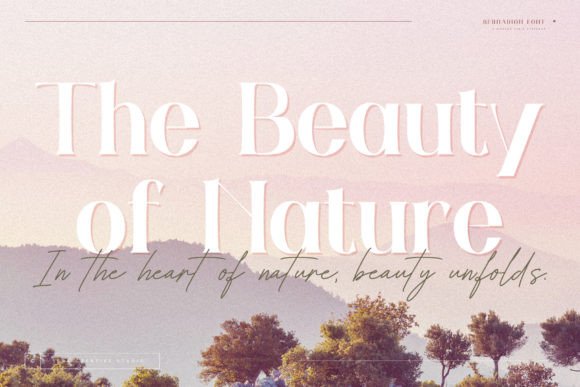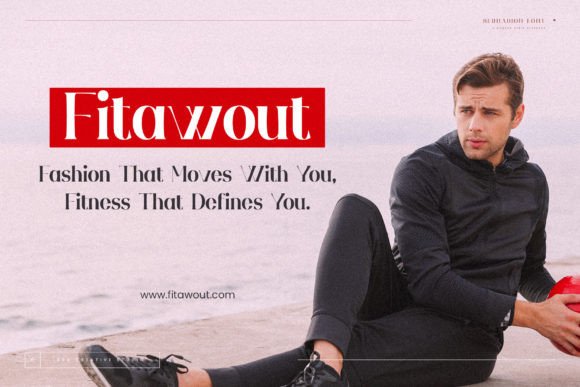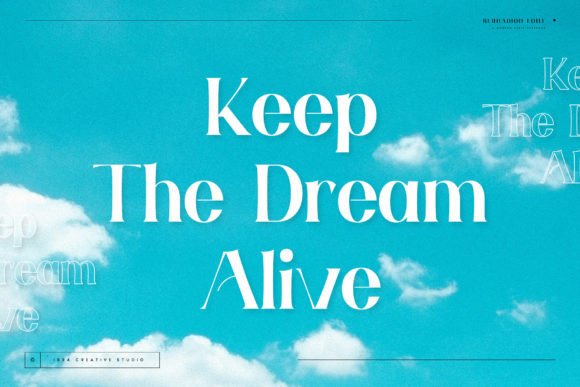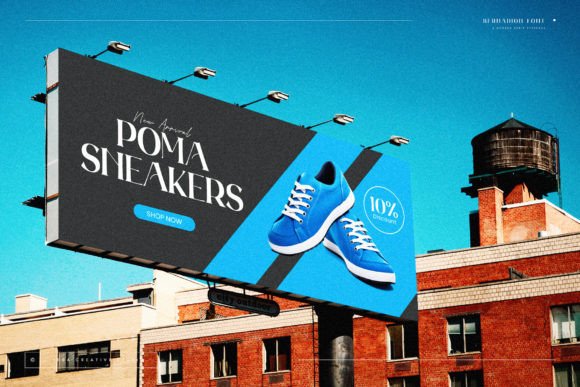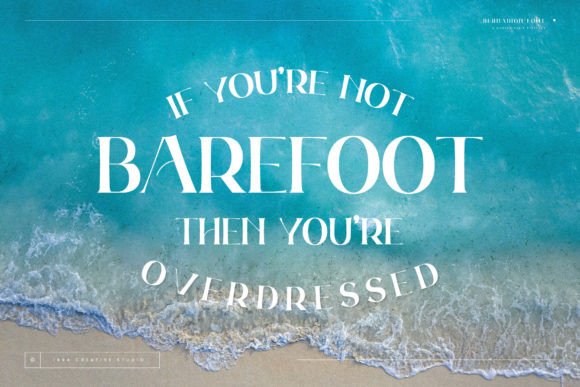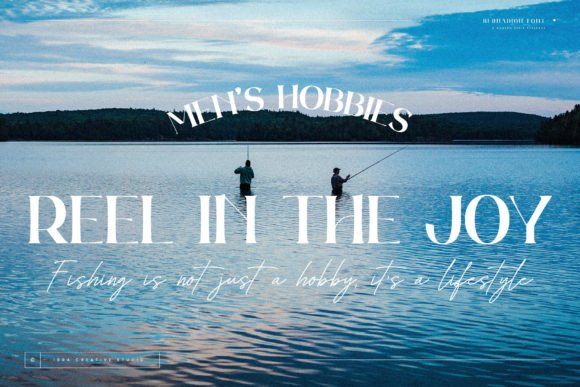
Bernadion Font: A Modern Serif Typeface for Sophisticated Designs
In the world of typography, a font can make or break a design. With the rise of modern design trends, the demand for typefaces that exude sophistication and elegance has increased. This is where Bernadion font comes into play – a contemporary serif typeface that strikes a perfect balance between timeless elegance and sleek aesthetics.
The Birth of Bernadion: A Harmonious Blend of Classic and Modern Elements
Bernadion is a thoughtfully crafted font that seamlessly merges traditional serif elements with modern design principles. The result is a typeface that boasts refined letterforms, subtle geometric influences, and a crisp, professional demeanor. The font’s creator aimed to design a typeface that would not only capture attention but also convey a sense of sophistication and luxury.
Key Features of Bernadion Font
- Refined Letterforms: Bernadion’s letterforms are meticulously designed to exude elegance and poise. Each character is crafted with precision, ensuring a harmonious flow of lines and curves.
- Subtle Geometric Influences: The font incorporates subtle geometric elements, adding a touch of modernity to its classic serif design.
- Balanced Proportions: Bernadion’s balanced proportions ensure that the font remains legible and visually appealing across various platforms and sizes.
- Meticulous Detailing: The font’s intricate details are designed to enhance clarity and readability, making it suitable for both print and digital applications.
Versatility of Bernadion Font
One of the standout features of Bernadion font is its versatility. The font’s balanced design and meticulous detailing ensure that it remains clear and readable across various platforms, including:
- Print Applications: Bernadion is ideal for use in print materials such as brochures, magazines, and business cards, where a professional and elegant look is desired.
- Digital Applications: The font is also well-suited for digital platforms, including websites, mobile apps, and social media, where a clear and legible font is essential.
Design Applications of Bernadion Font
Bernadion font can be used in a wide range of design applications, including:
- Branding and Identity: The font’s sophisticated and elegant design makes it an excellent choice for branding and identity projects, such as logos, letterheads, and business cards.
- Advertising and Marketing: Bernadion’s clear and legible design ensures that it remains effective in advertising and marketing materials, such as billboards, posters, and flyers.
- Packaging and Labeling: The font’s versatility and elegance make it suitable for packaging and labeling applications, such as product labels and packaging materials.
In conclusion, Bernadion font is a modern serif typeface that offers a unique blend of sophistication, elegance, and versatility. With its refined letterforms, subtle geometric influences, and meticulous detailing, Bernadion is an excellent choice for designers and crafters looking to add a touch of luxury and professionalism to their designs. Whether used in print or digital applications, Bernadion font is sure to make a lasting impression.